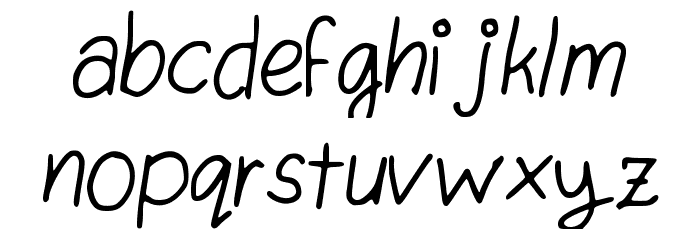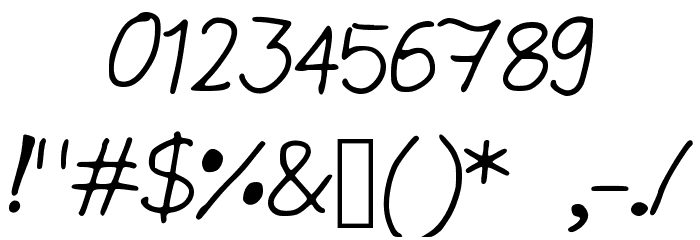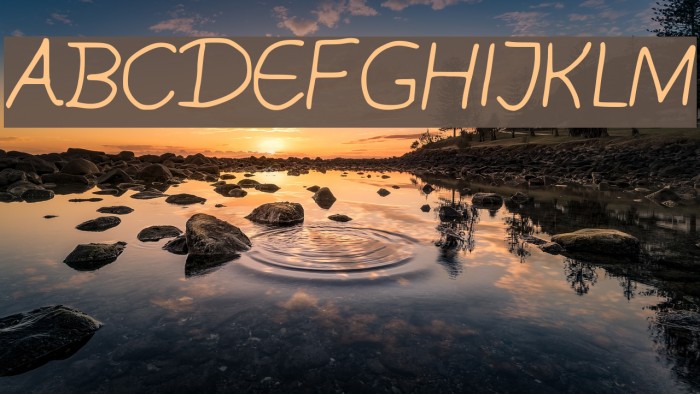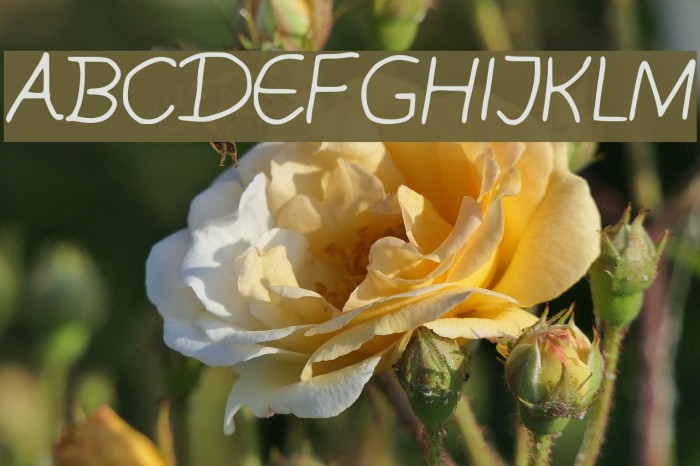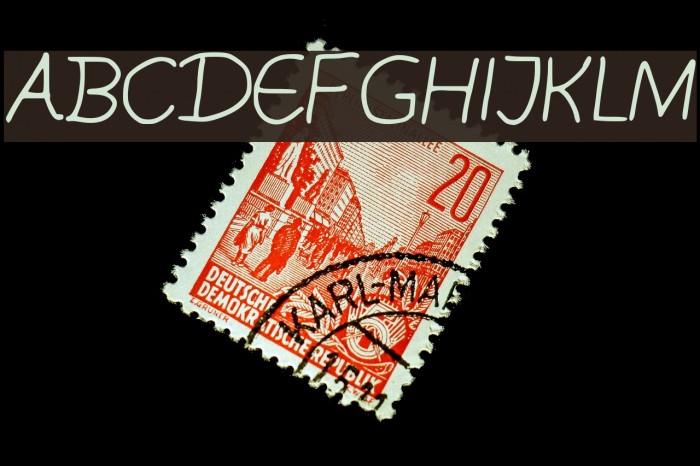
Swirl_ Font
This font features a playful and whimsical design, characterized by its handwritten style with smooth, flowing curves. The letters are slightly slanted, giving a casual and informal appearance. The strokes are consistent in weight, providing a uniform look across all characters. The uppercase letters are bold and prominent, while the lowercase letters maintain a friendly and approachable feel. Numbers and special characters are designed to match the overall style, ensuring coherence throughout. This font is ideal for projects that require a personal touch or a creative flair.
A playful, handwritten font with smooth, flowing curves and a casual style.
- Proposed Projects: Greeting cards, children's books, creative invitations, personal branding, and playful logos.
- Overall Style: Playful, Casual, Whimsical
- Use Case: Headlines, Invitations, Creative projects